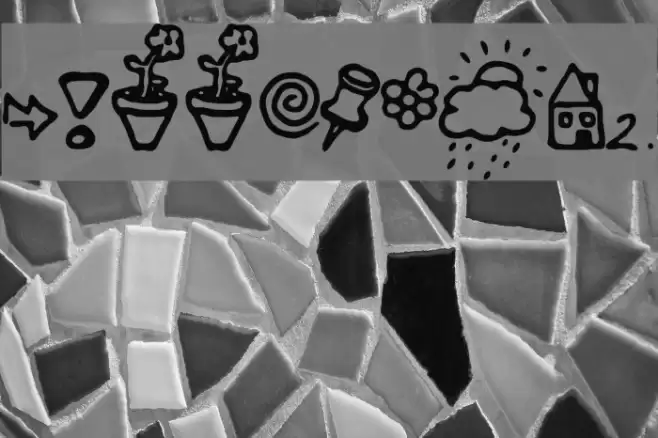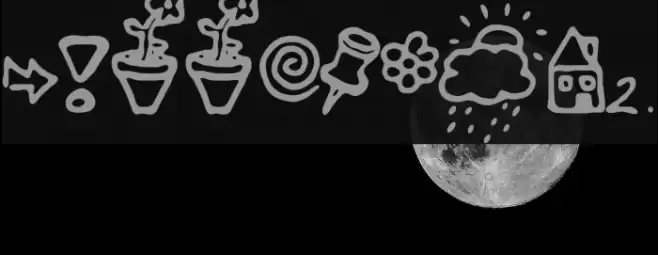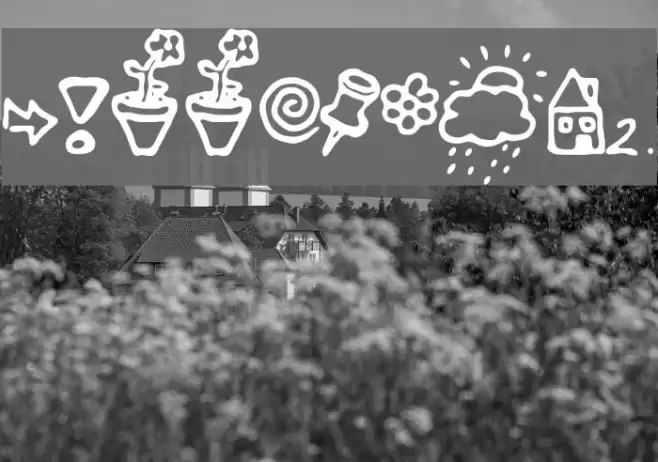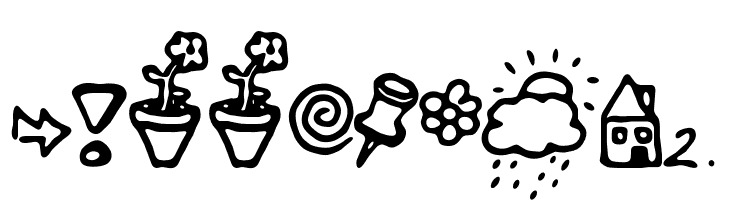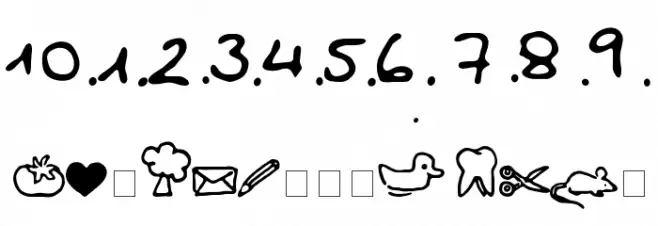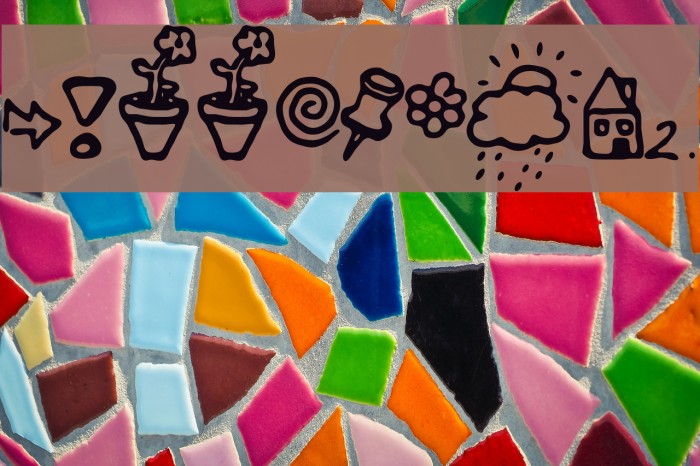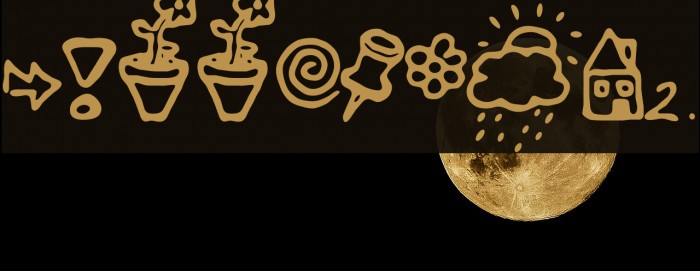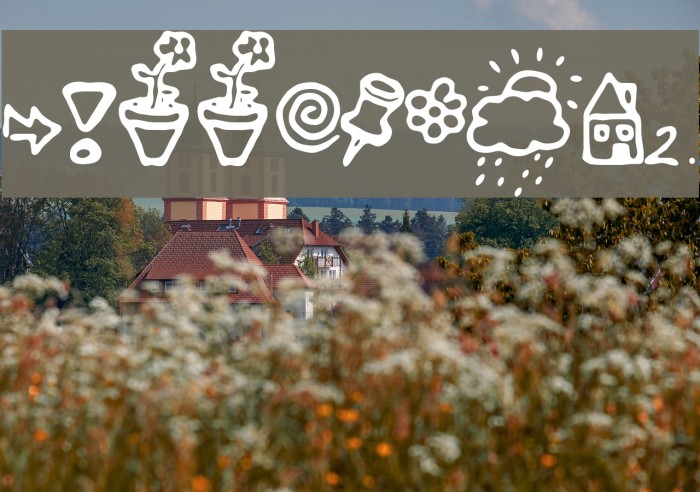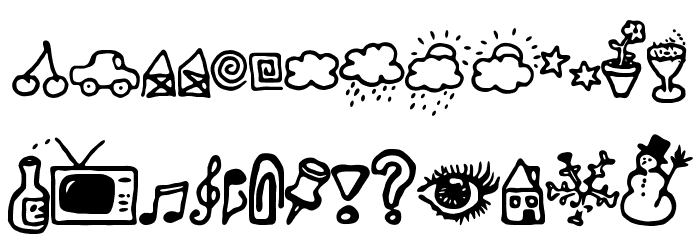
BulletMix2 Font
BulletMix2 Description
This collection features a playful and whimsical assortment of hand-drawn symbols and icons. Each character is unique, offering a variety of shapes such as arrows, smiley faces, check marks, light bulbs, and more. The style is informal and sketch-like, with a consistent line weight that gives it a cohesive look. The icons include everyday objects, nature elements, and abstract designs, making it versatile for creative projects. The overall aesthetic is fun and casual, suitable for adding a personal touch to designs.
A playful, hand-drawn collection of whimsical symbols and icons from Dingbats fonts.
- Proposed Projects: Ideal for children's books, creative invitations, scrapbooking, and playful branding materials.
- Overall Style: Whimsical, Playful, Casual
- Use Case: Decorative elements, Illustrations, Creative projects